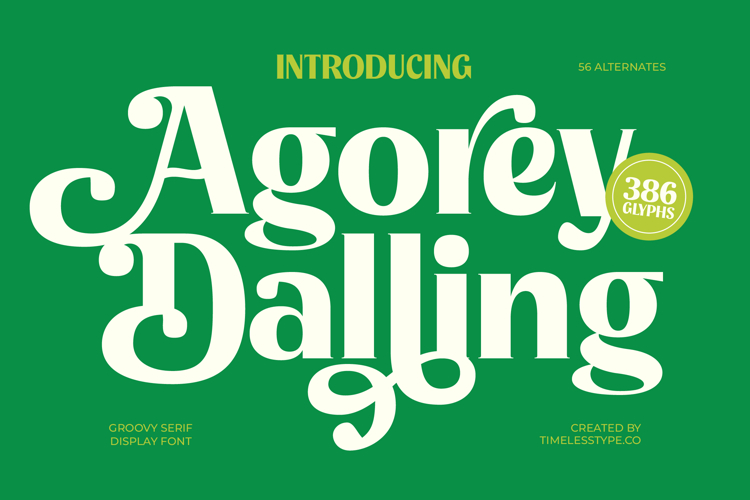
Agorey Dalling - Groovy Serif Display
Agorey Dalling - Groovy Serif Display Font
Elevate your designs with unmistakable flair and elegance using Font Agorey Dalling - Groovy Serif Display Font Serif Display. This captivating typeface embodies a unique blend of vintage charm and contemporary sophistication, making it ideal for projects demanding character and readability. Its distinctive high-contrast strokes and gracefully flowing curves immediately command attention, setting your brand apart with undeniable style.
Unlock a world of creative possibilities with Font Agorey Dalling - Groovy Serif Display Font Serif Display's extensive features. Boasting 386 glyphs and 56 alternates, this font offers unparalleled customization flexibility. Experiment with its playful swashes and refined serifs to craft bespoke typographic compositions that add intricate detail and interest to designs.
Perfectly suited for impactful visuals, Font Agorey Dalling - Groovy Serif Display Font Serif Display excels in diverse applications such as luxury branding, packaging, editorial, headlines, and captivating posters. With its extensive multilingual support, Font Agorey Dalling - Groovy Serif Display Font Serif Display adapts seamlessly across global markets, making it incredibly versatile for international projects. It conveys sophistication, creativity, and nostalgic luxury.
Make an unforgettable statement and infuse projects with unique personality. Font Agorey Dalling - Groovy Serif Display Font Serif Display is meticulously designed to leave a lasting impression, ensuring your message resonates. Choose this expressive display font to impart a professional, charming, and distinctive aesthetic that elevates your creative work.